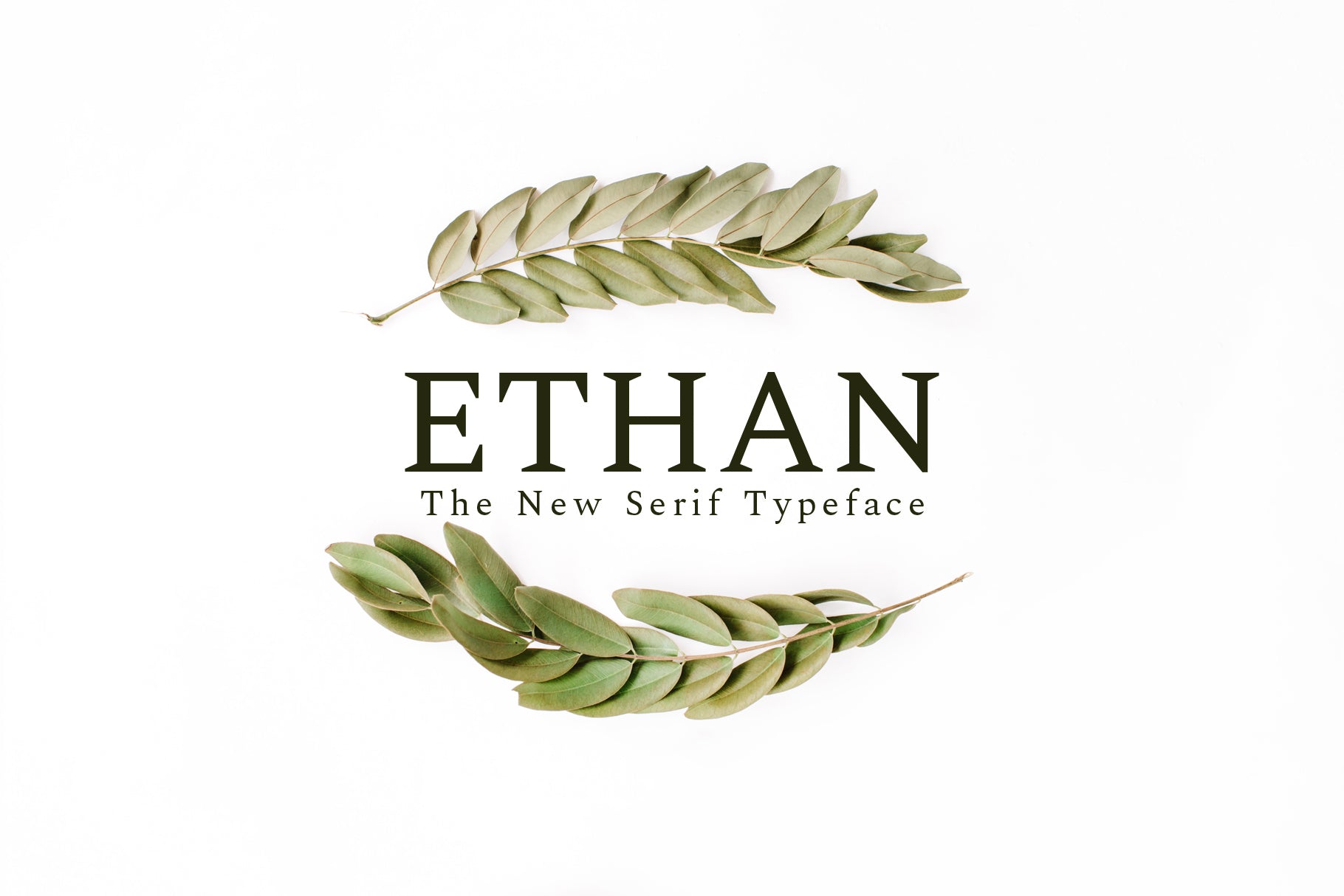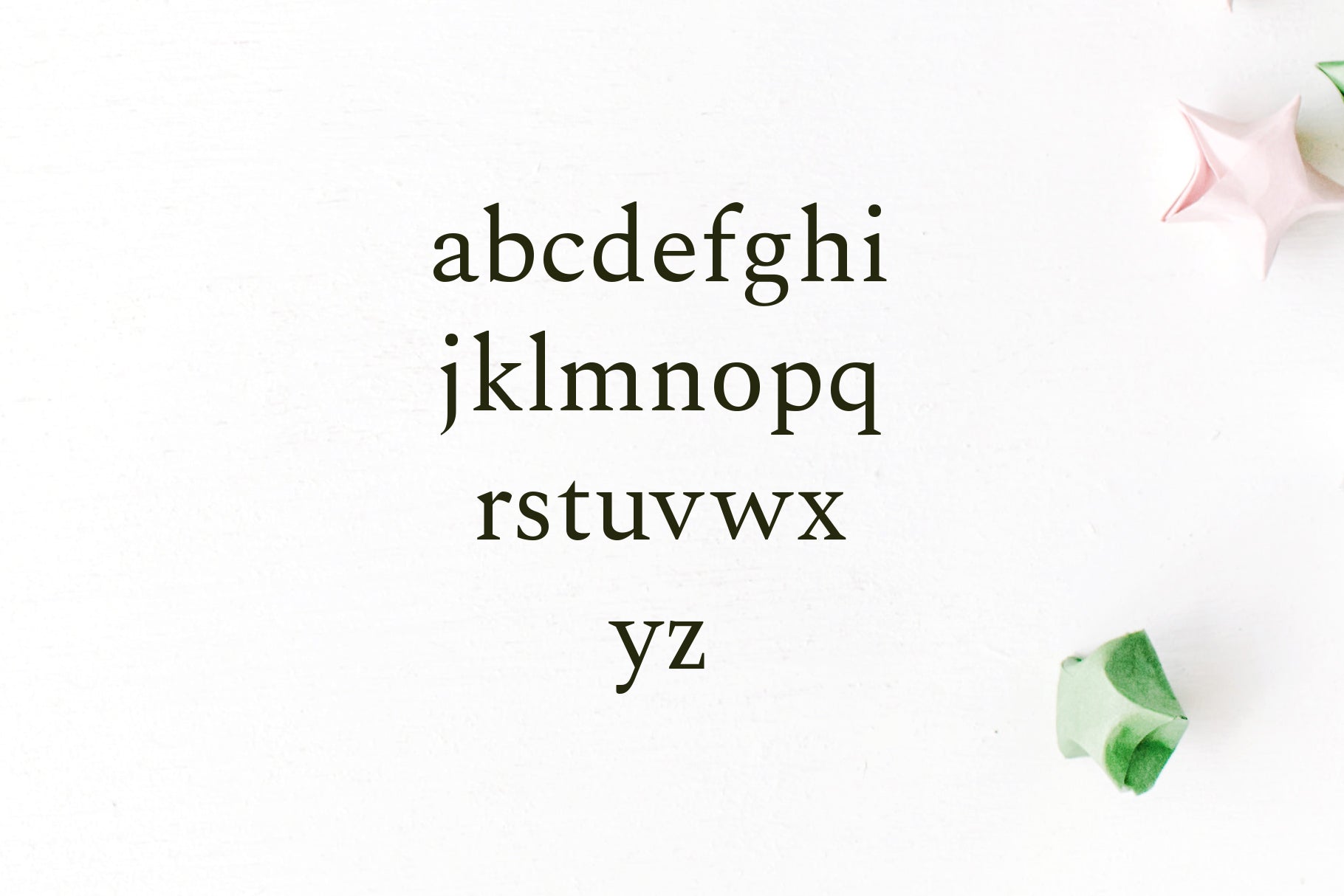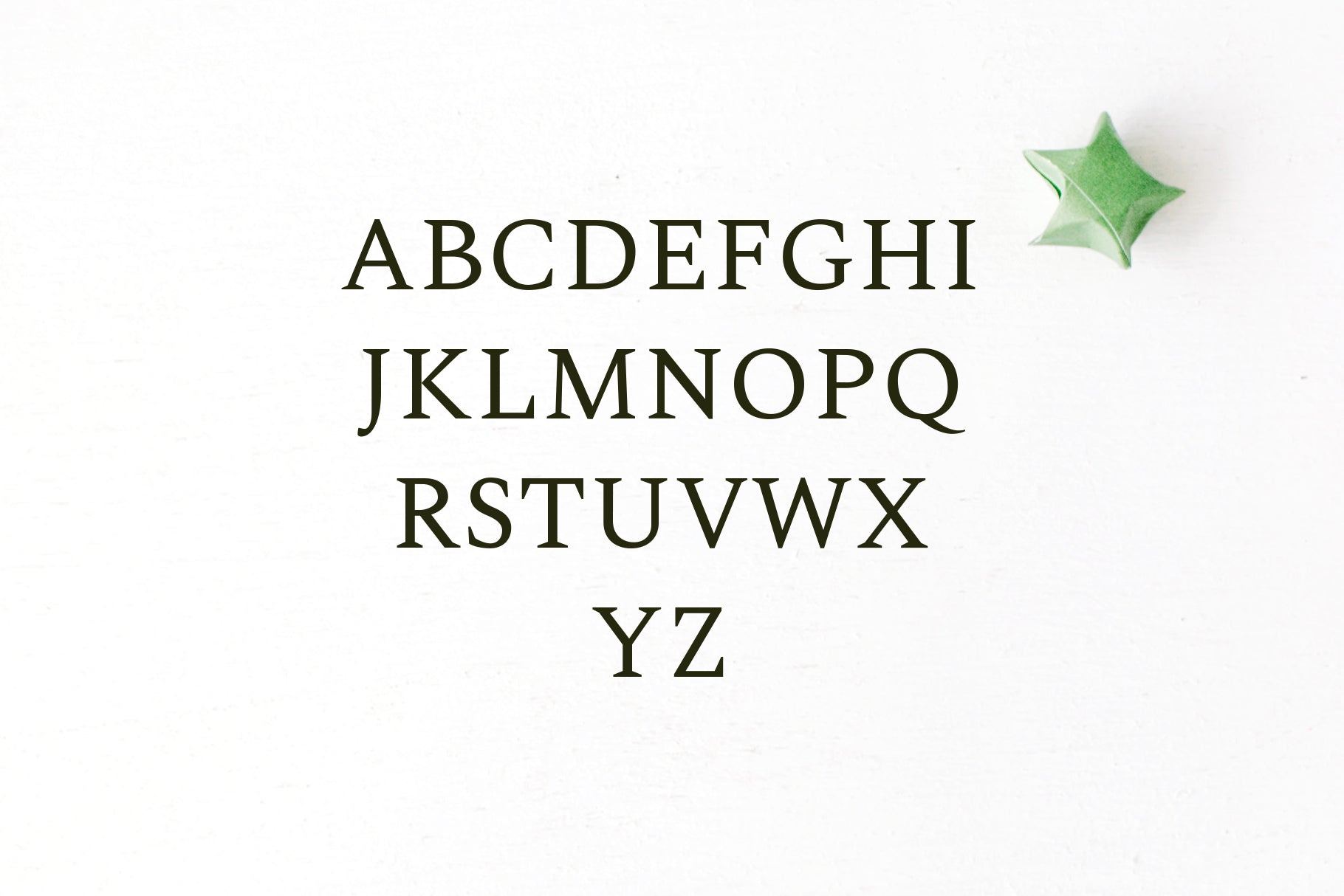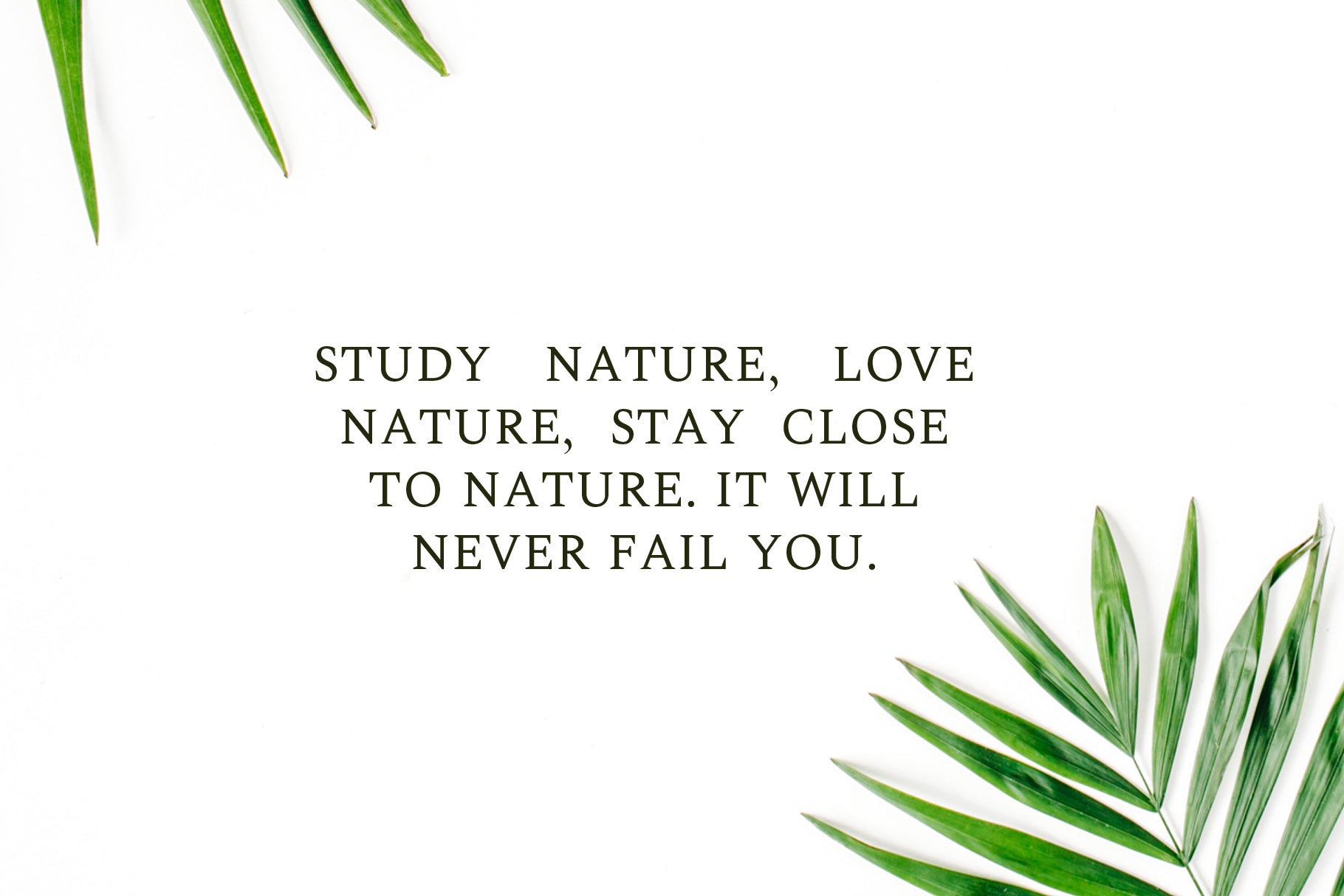
Ethan Serif Font Family is decorative and beautiful serif font family of 6 weights and it features unique and modern serif look and feel.
Perfect for gorgeous logos & titles, layouts & content, or large & small scale, It looks gorgeous in all caps with a wide-set spacing if you want to try a classy look, or beautiful on its own in capital and lowercase letters for something completely timeless.
Font Weight: Regular, Light, Medium, Bold, Italic, Expanded and Black